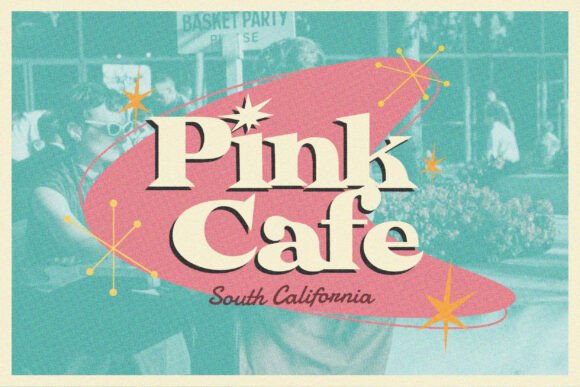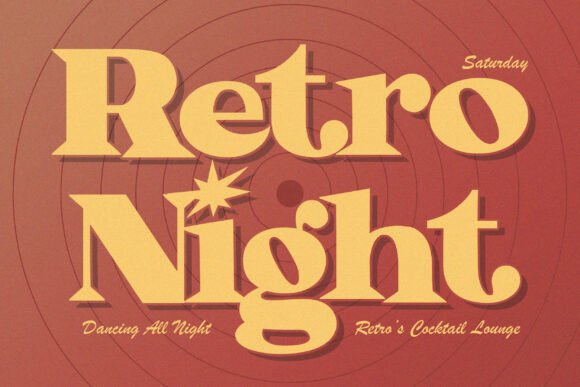
Atomic Circle Font
Atomic Circle is a Mid Century & Retro style font. It’s perfect for your display or product design: shirts, poster designs, stickers, logos, branding, greeting cards, Cricut projects, posters, magazines, social media, planner prints, and websites.